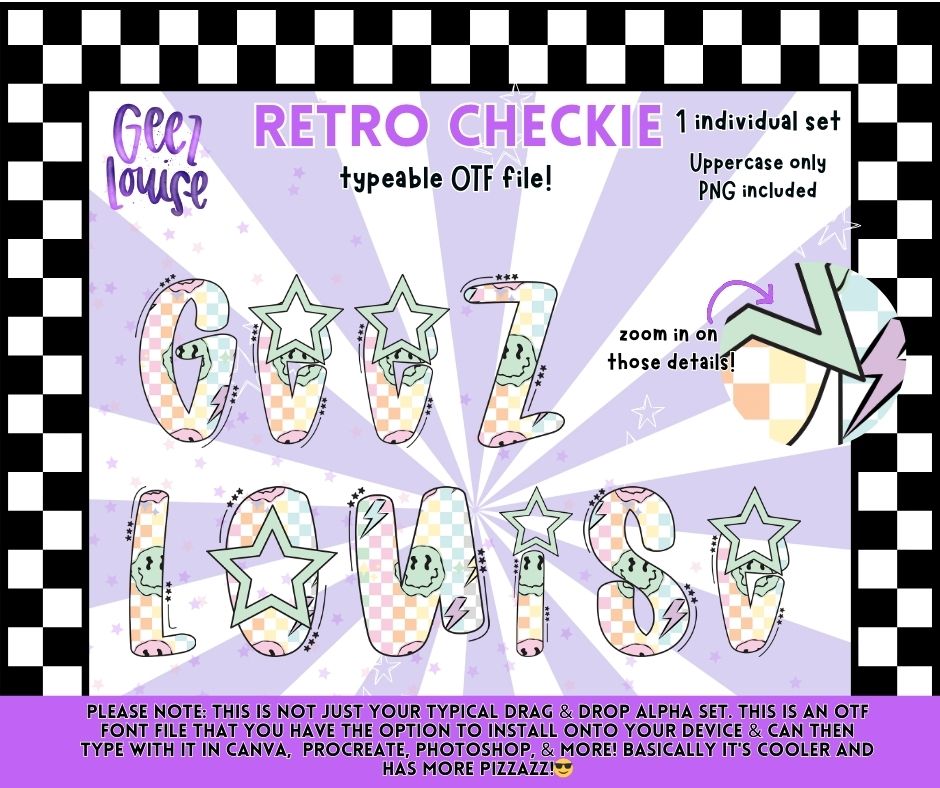
Retro Checkie Alpha Set | Typeable OTF Font + PNG Letters | Retro Checkered Alphabet
Bring on the retro vibes with this Retro Checkie alpha set!
Featuring pastel checkered patterns, cute stars, lightning bolts, and nostalgic retro shapes — this set is ideal for Y2K, kid designs, girly graphics, and fun boutique aesthetics.
Retro pastel checkered patterns with stars + lightning bolt elements